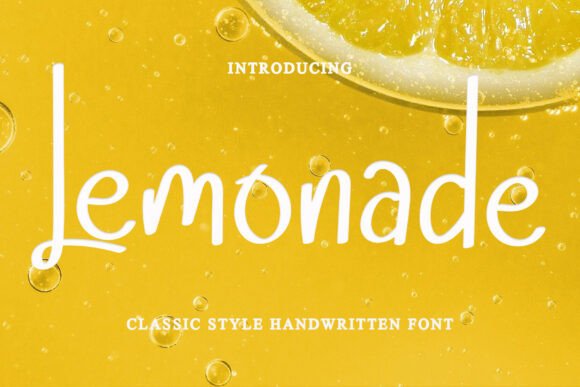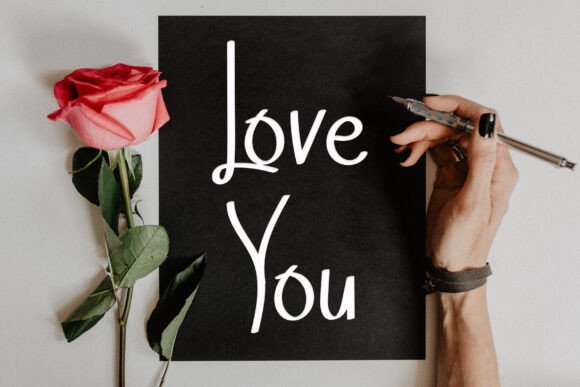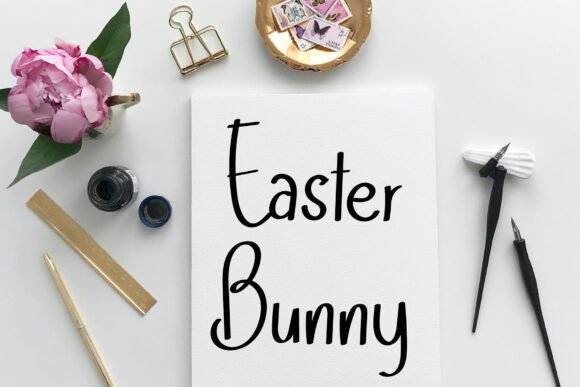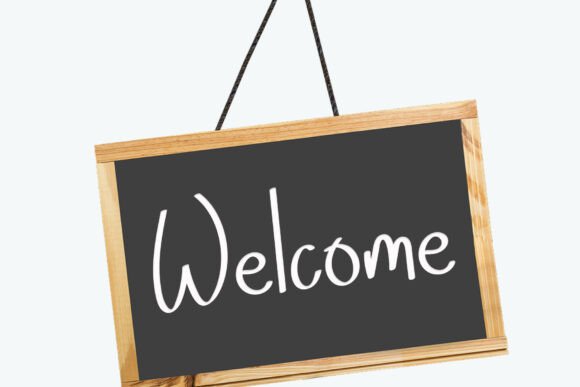
Lemonade Font: A Cute Handwritten Font for Social Media Design
About the Lemonade Font
Meet Lemonade Font, a stunning font that brings a touch of elegance and professionalism to any design. Lemonade is a sweet and friendly handwritten font. Its natural and unique style makes it incredibly fitting to a large pool of designs. The only limit is your imagination!
Lemonade’s friendly, casual style works best for headlines, short text blocks on packaging, invitations, and social media graphics. It adds a touch of playful charm to branding projects targeting younger demographics or businesses emphasizing approachability. However, its handwritten nature makes it less suitable for body text or UI elements where readability is paramount.
Pairing Lemonade with a clean sans-serif like Open Sans for body copy creates a strong visual hierarchy. For a more sophisticated look, consider a classic serif like Garamond or a geometric sans-serif such as Futura. These pairings provide a pleasing contrast, allowing Lemonade’s informal character to shine without compromising overall design clarity.
The font exudes a cheerful, approachable personality, ideal for brands focusing on happiness, creativity, or family-friendly products. Avoid using it where a sense of authority or professionalism is needed.
Lemonade Font Usage Examples
Lemonade Font Example